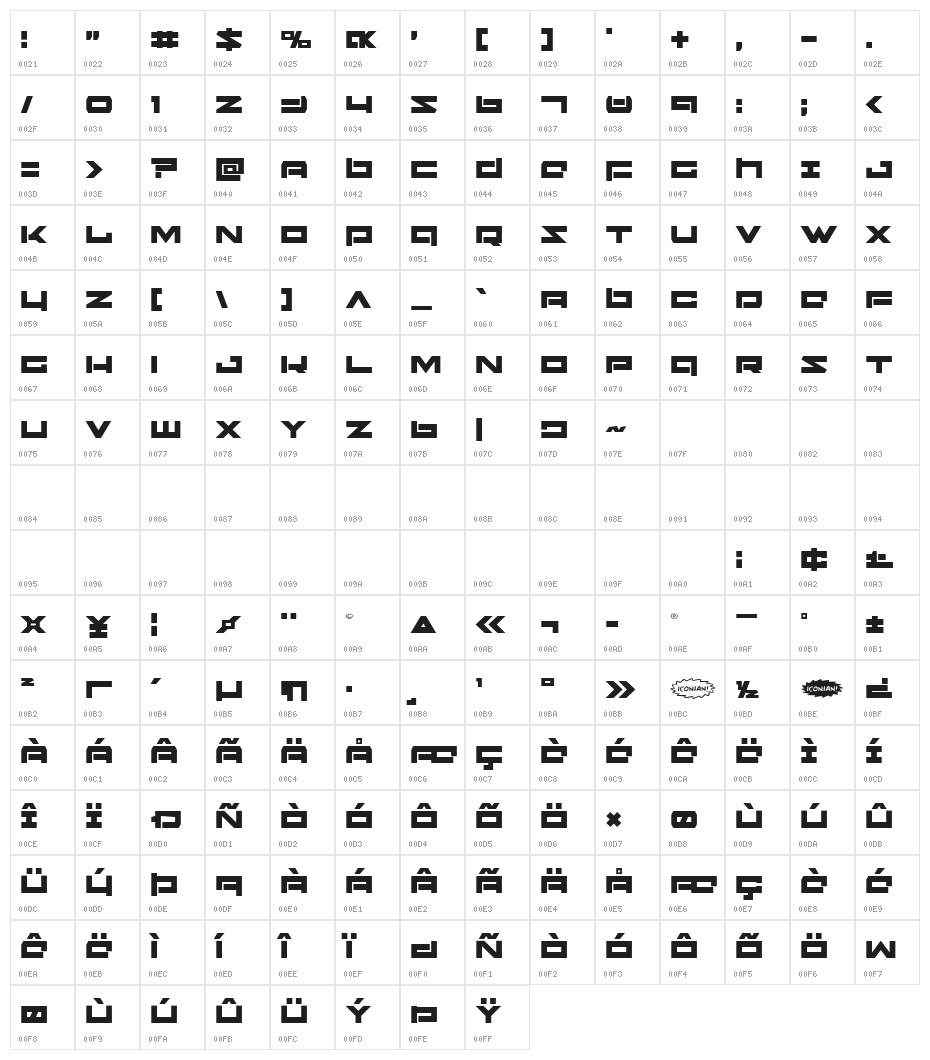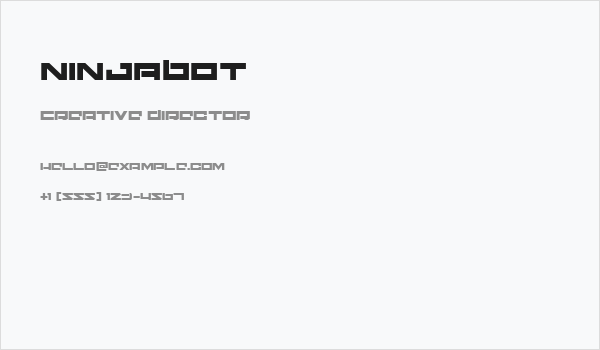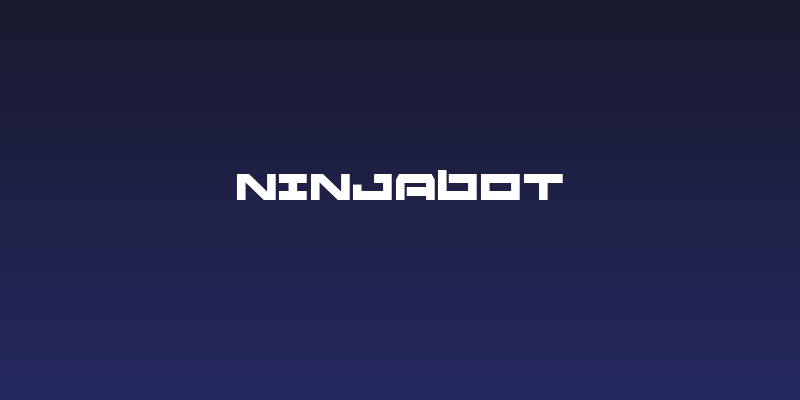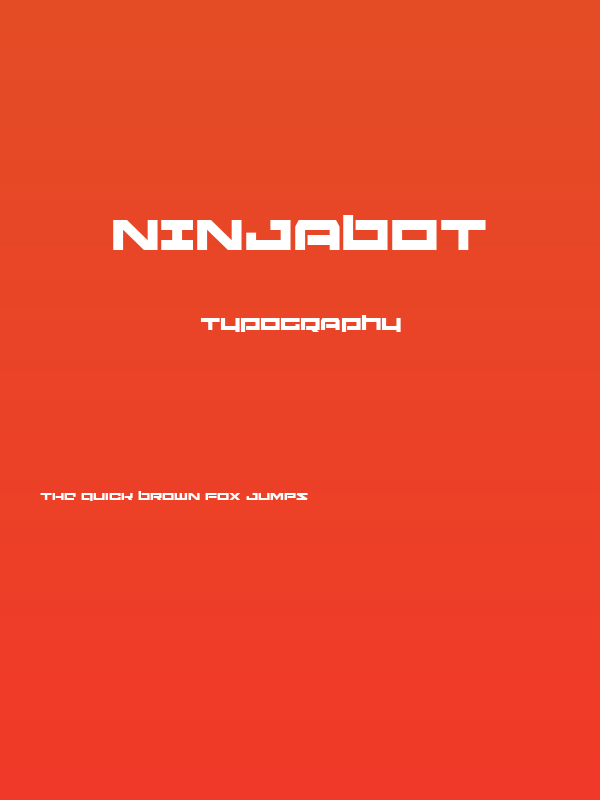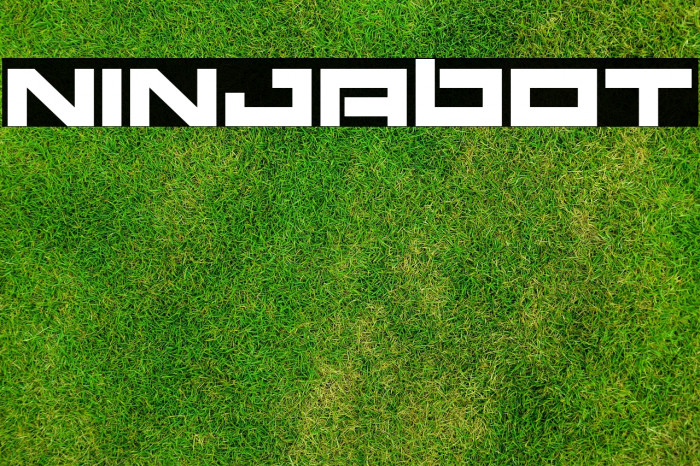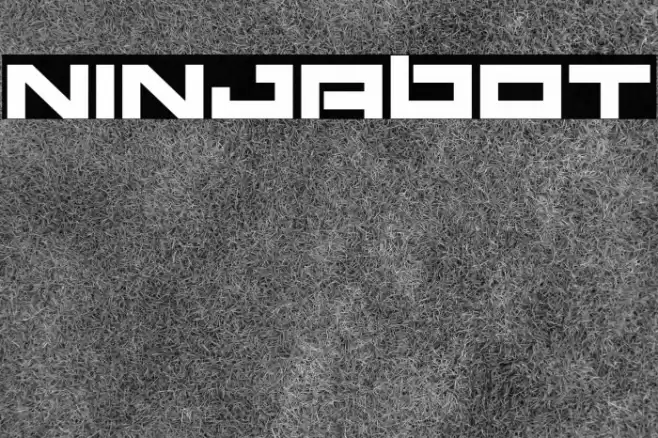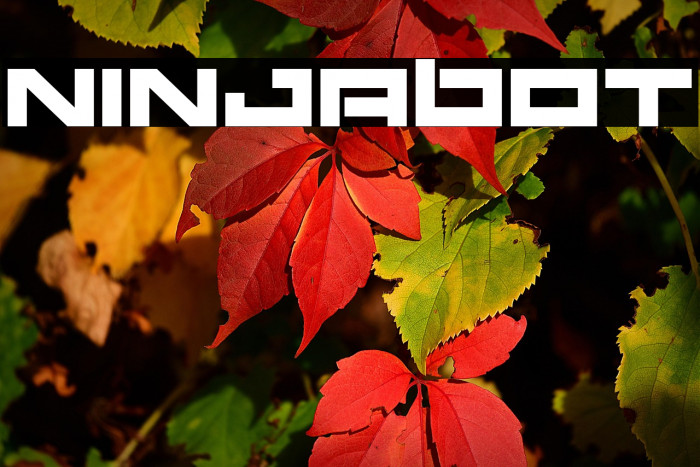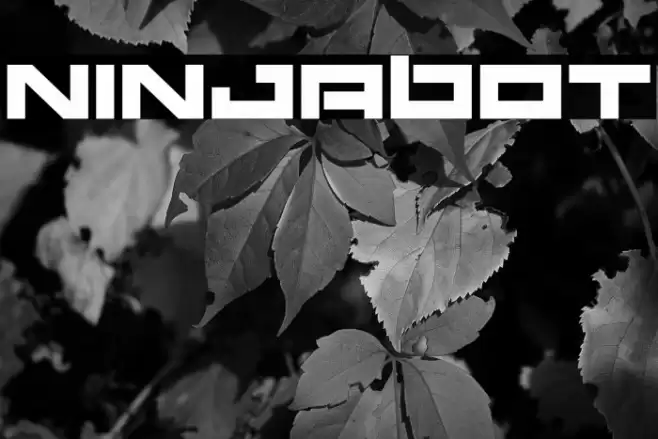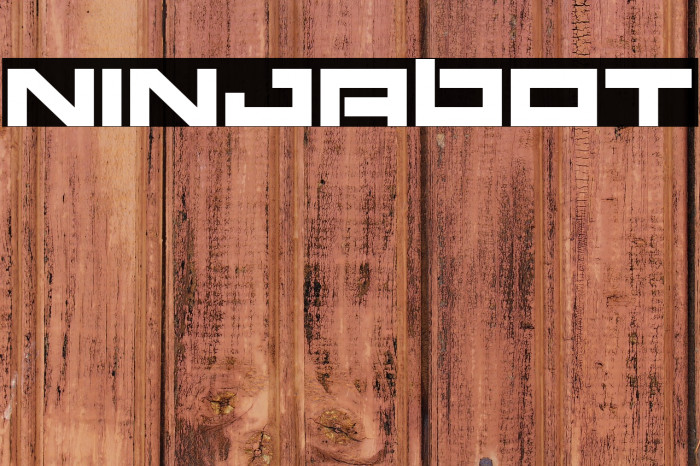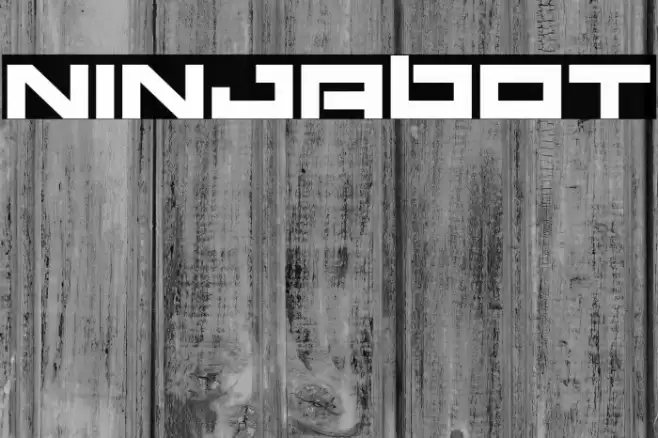
Ninjabot Font
Ninjabot Description
This font features a bold, geometric design with sharp angles and a futuristic aesthetic. Each character is constructed with a blocky, angular style, giving it a strong and assertive presence. The uppercase and lowercase letters maintain a consistent height, contributing to a uniform appearance. Numbers and special characters follow the same design principles, ensuring cohesion across all elements. The font's unique style makes it ideal for projects requiring a modern, tech-inspired look.
| Proposed Projects | Ideal for tech branding, video game titles, sci-fi movie posters, and modern digital interfaces. |